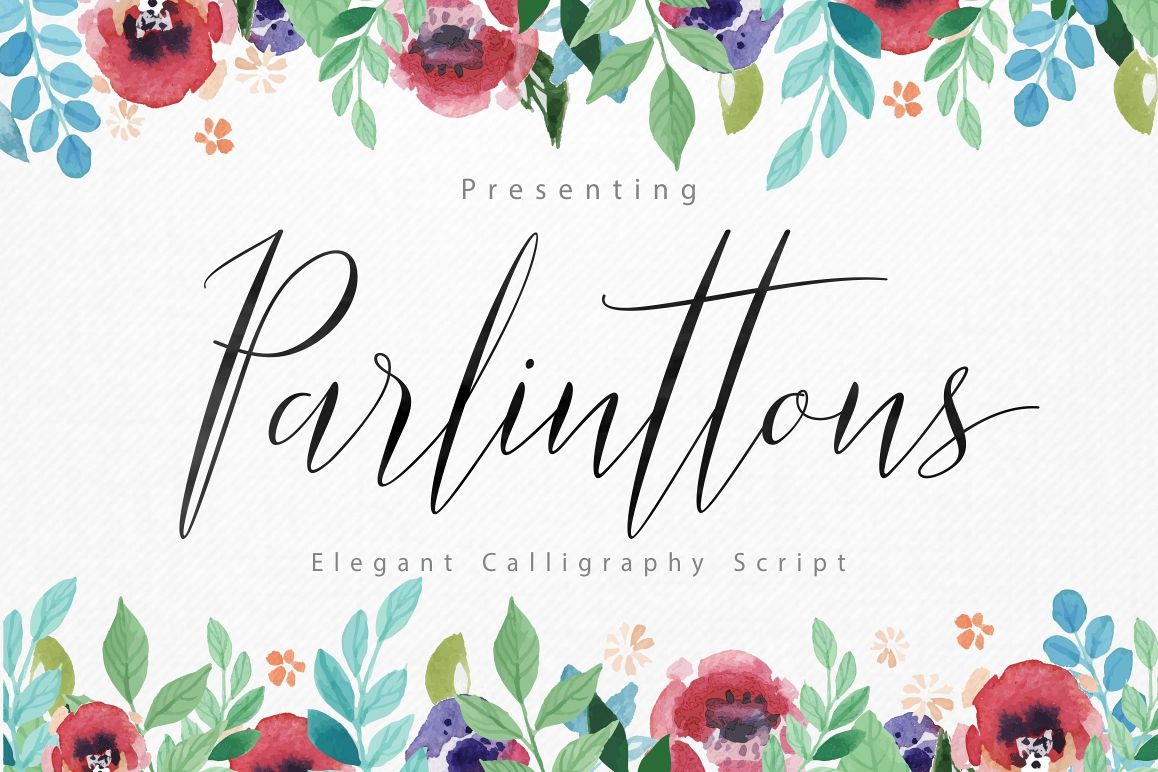
Parlinttons Script
Introducing Parlinttons Script is an elegant calligraphy script typeface.
Parlinttons Script can be used to for market design developed at this time, this font has a model Trendy, natural and gentle. is suitable for use in such design style as watercolor, minimalist, flat, modern design, etc. With the combination and some color, you can easily create something exciting and look beautiful for your design.
Although It is also suitable for other purposes such as posters, shopping bags, title, insignia, badges, t-shirts, logos, branding, book covers, badge, birthday invitations, greeting cards, etc.
You can use this font for your job very easily. Because there are many features in it. Contains the complete set of lower and uppercase letters, punctuation, numbers, web fonts, and multilingual support. This font also includes several ligatures and alternative style Stylistic Set For those of you who have software that is capable of working OpenType (Corel Draw / Photoshop / Illustrator / InDesign).